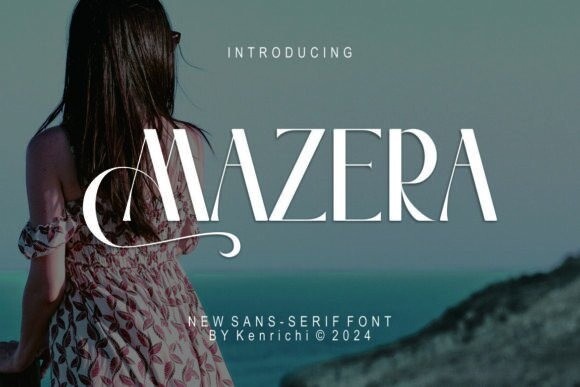
Mazera Font
Mazera is an elegant and bold serif font. Fall in love with its incredibly versatile style and use it to create gorgeous wedding invitations, beautiful stationary art, eye-catching social media posts, and much more!